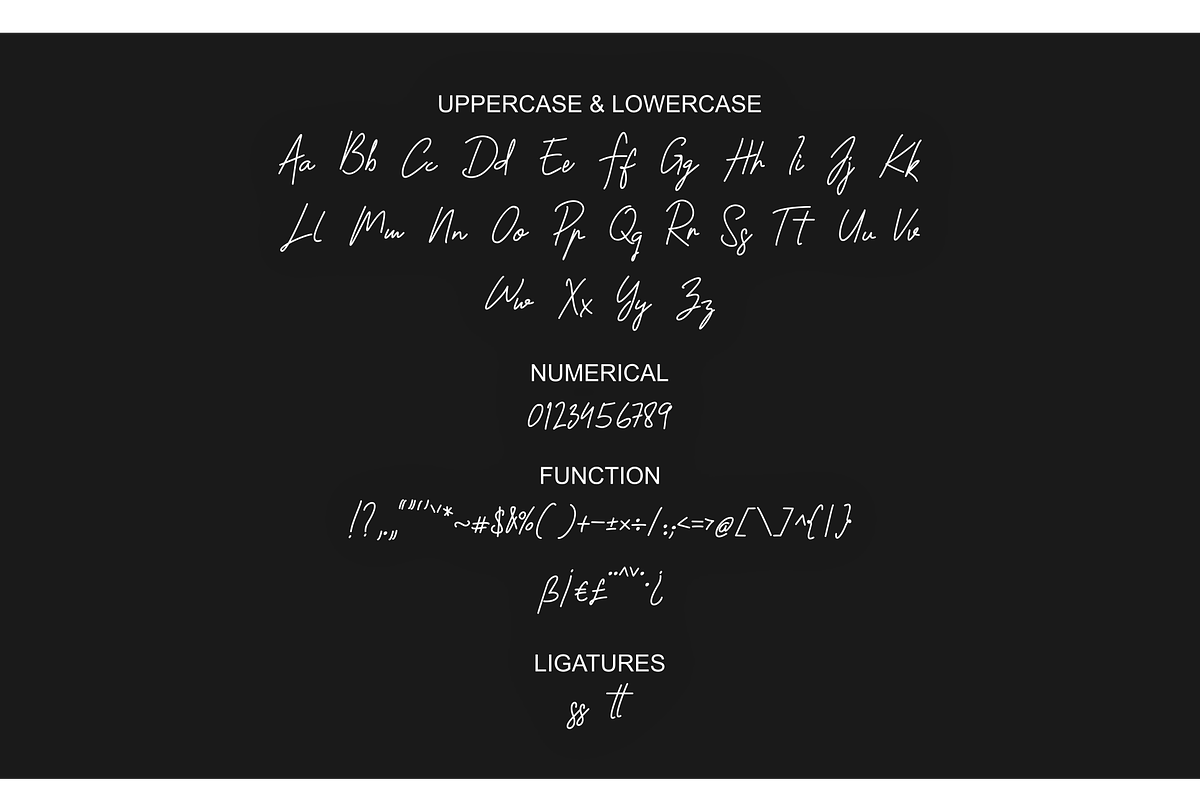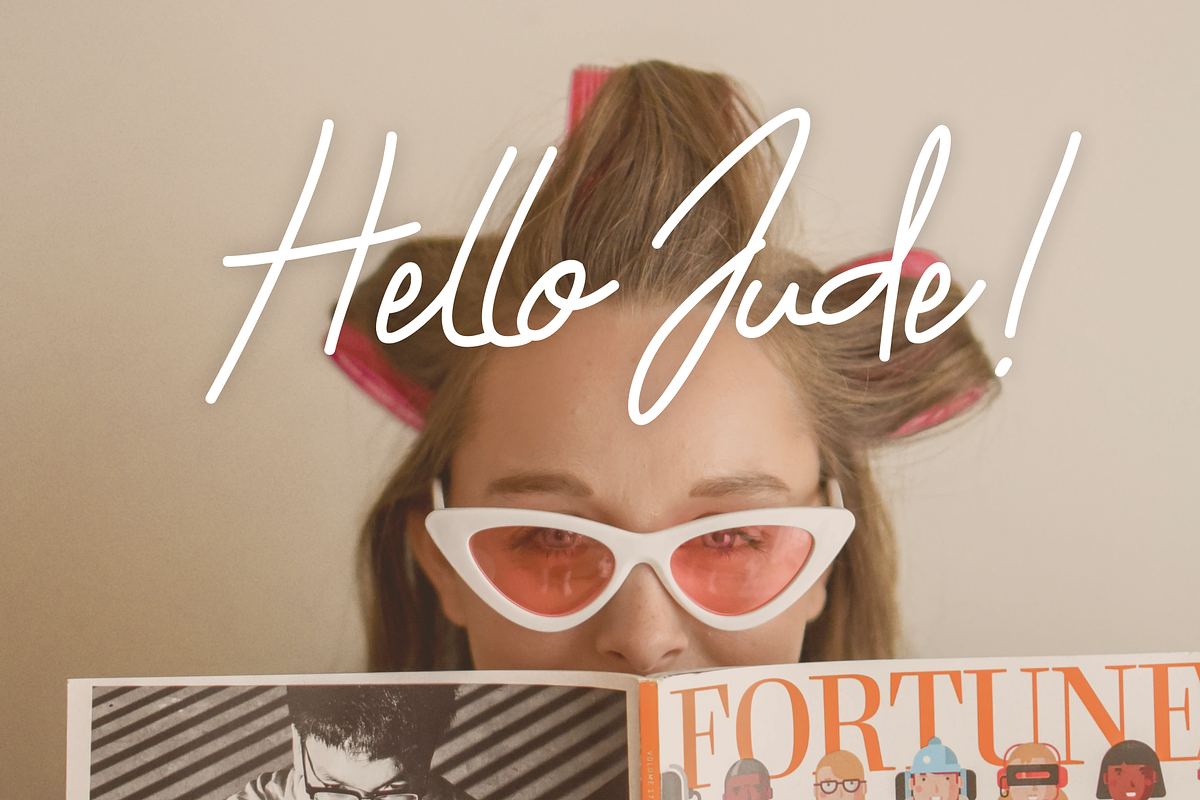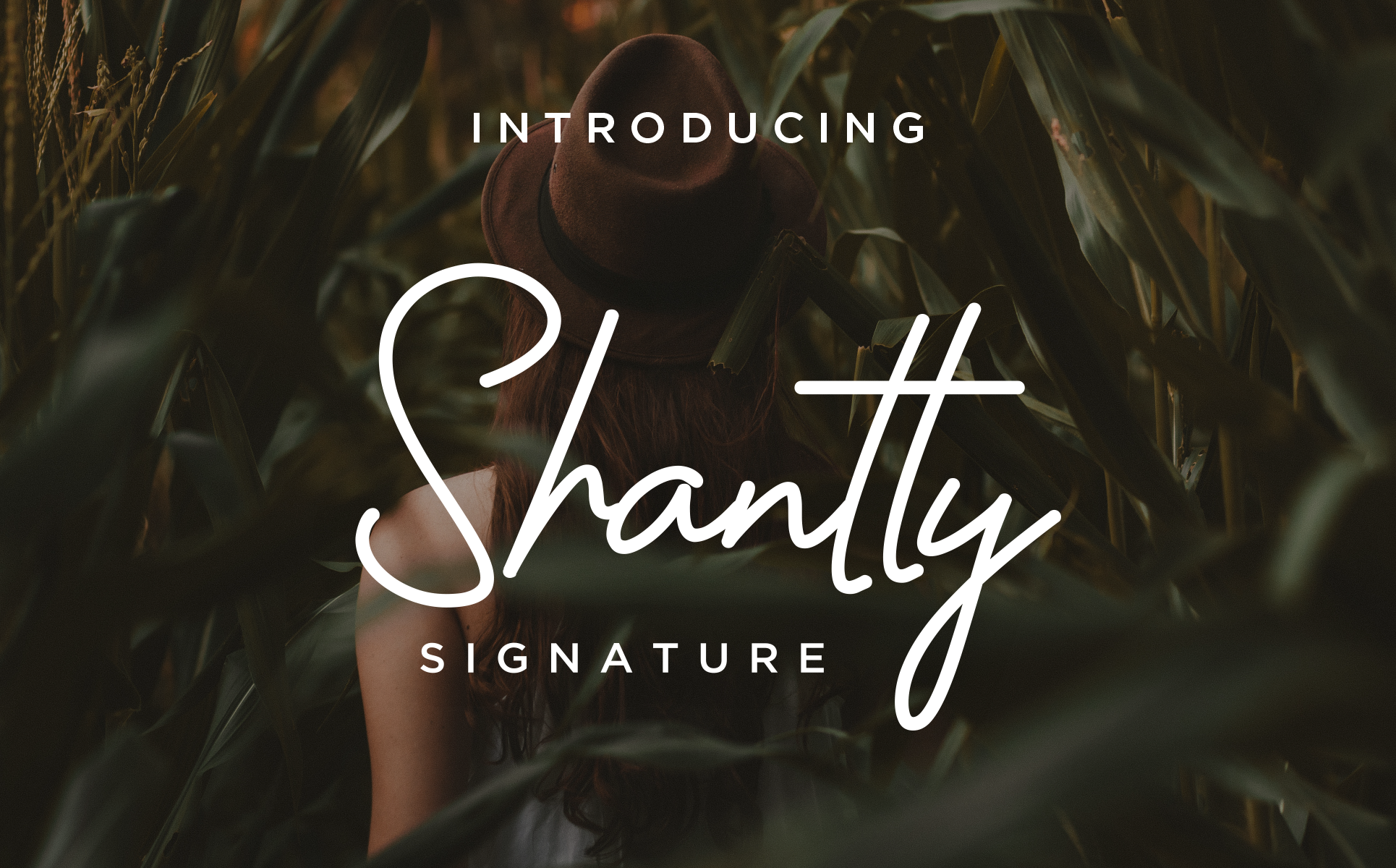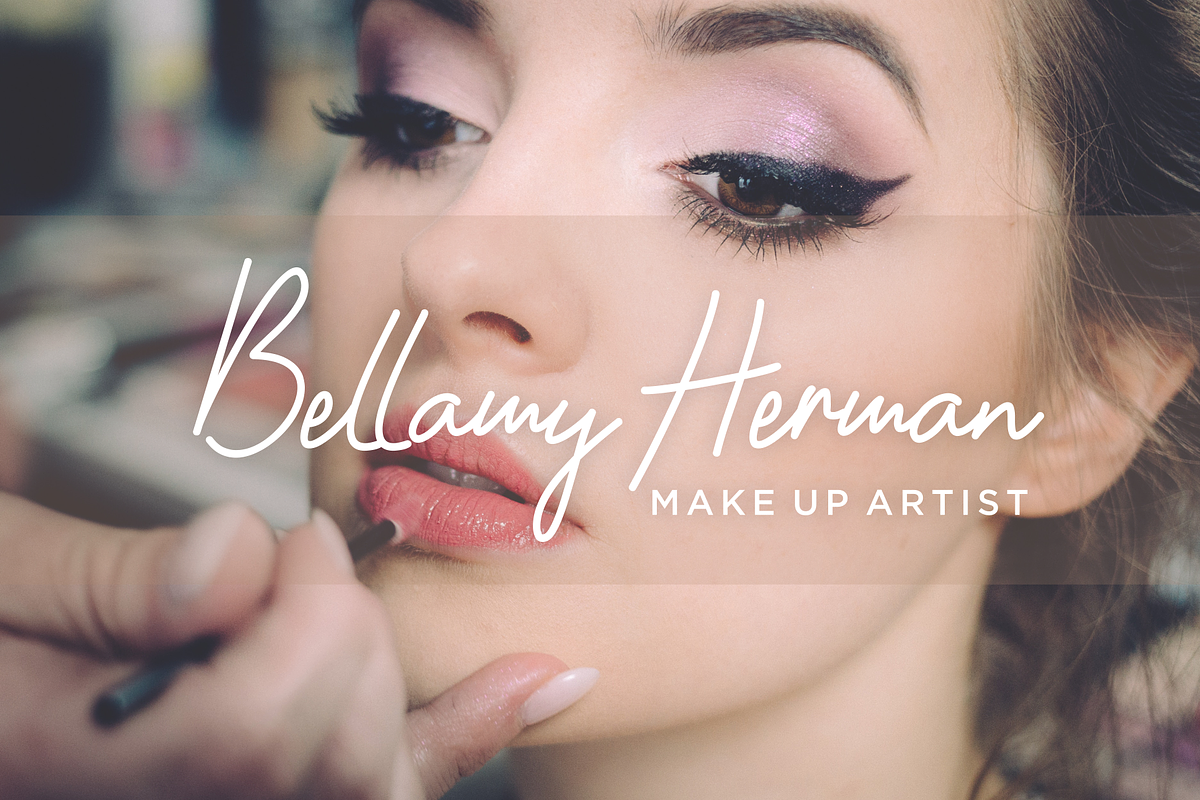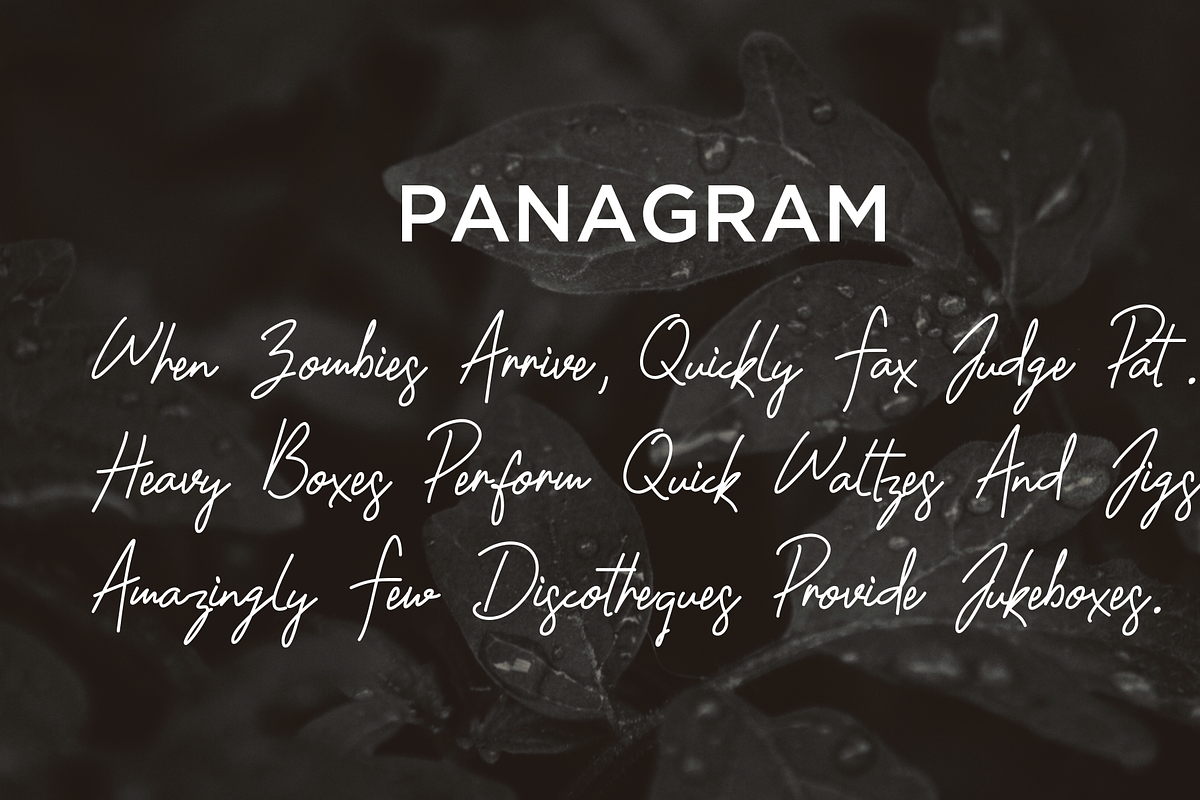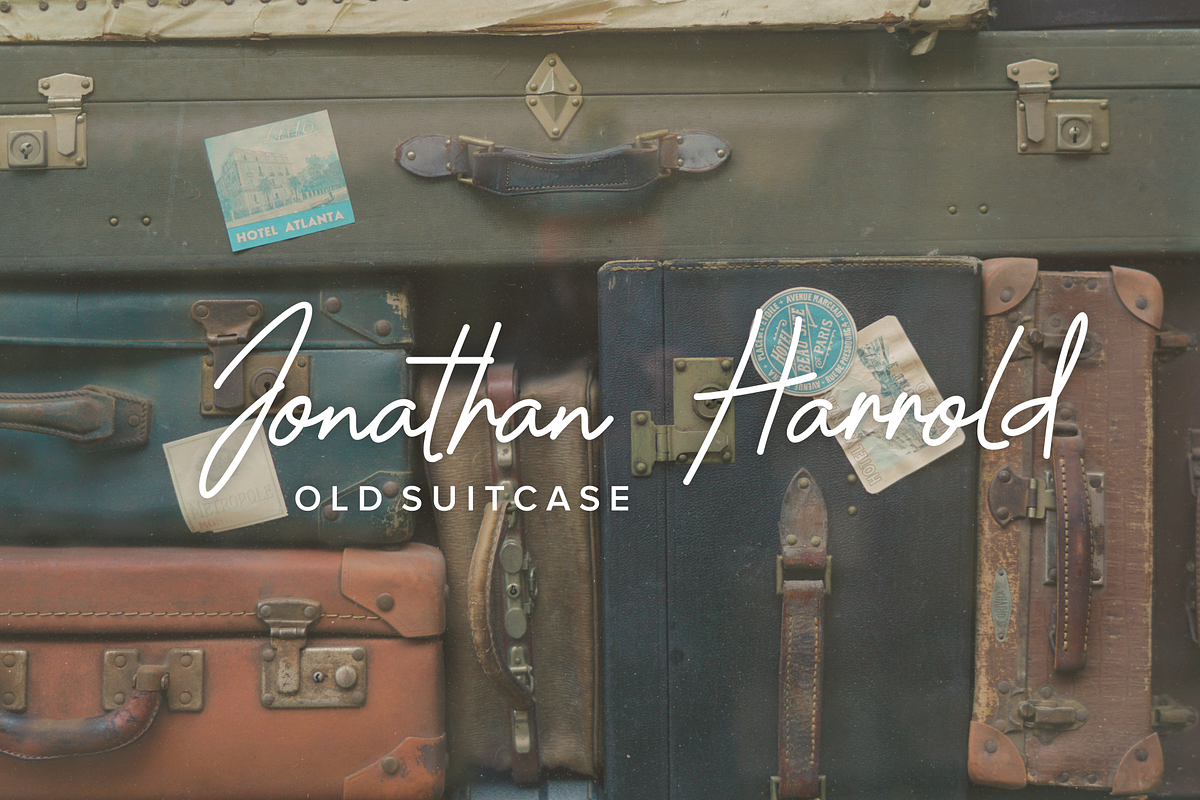
Shantty - Signature Font
Introducing the Shantty font! Shantty is modern Signaturte font, every single letters have been
carefully crafted to make your text looks beautiful. With modern script style this font will
perfect for many different project ex: photography, watermark, quotes, poster, wedding,
branding, fashion, apparel, letter, invitation, stationery, etc.